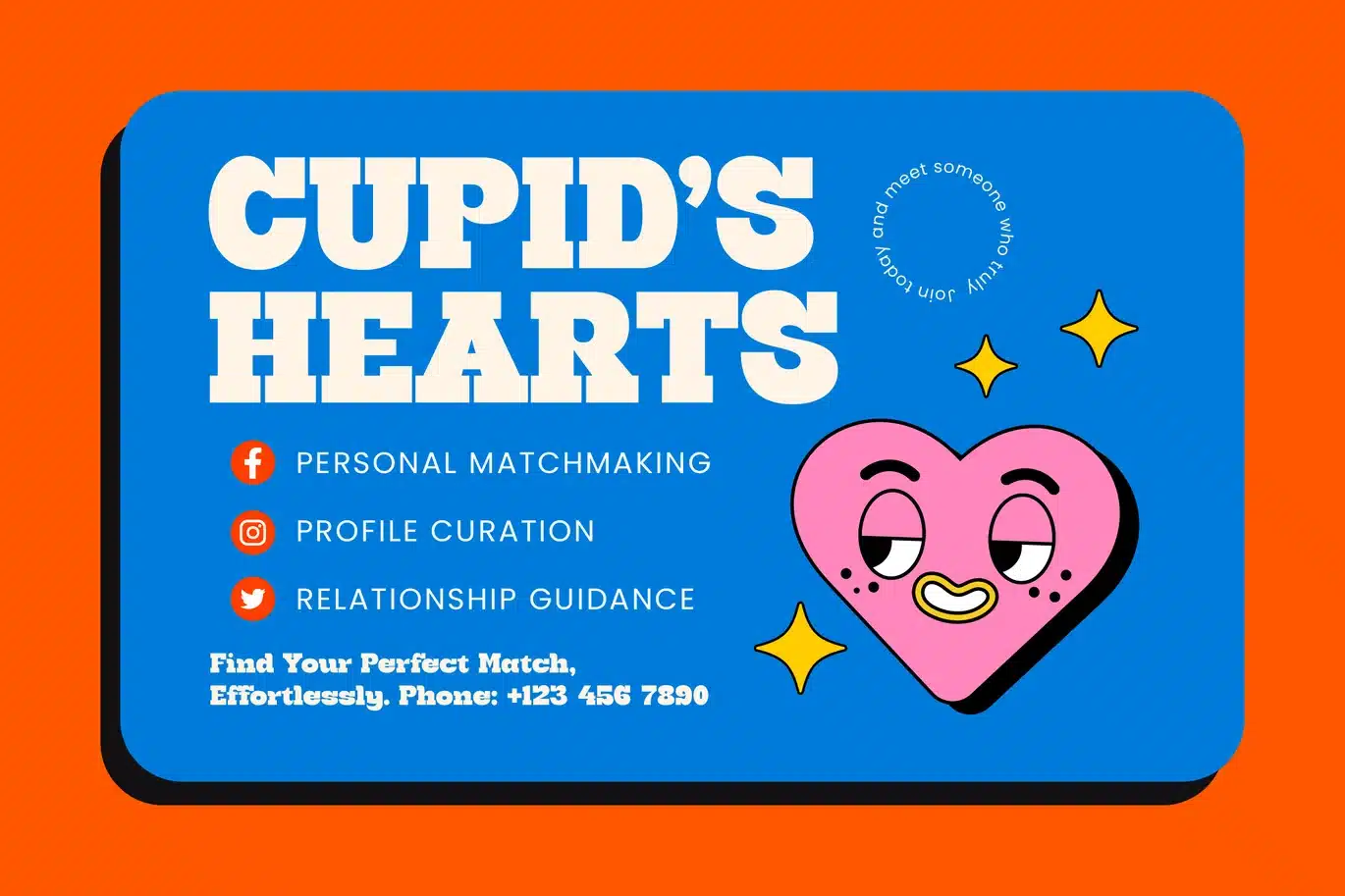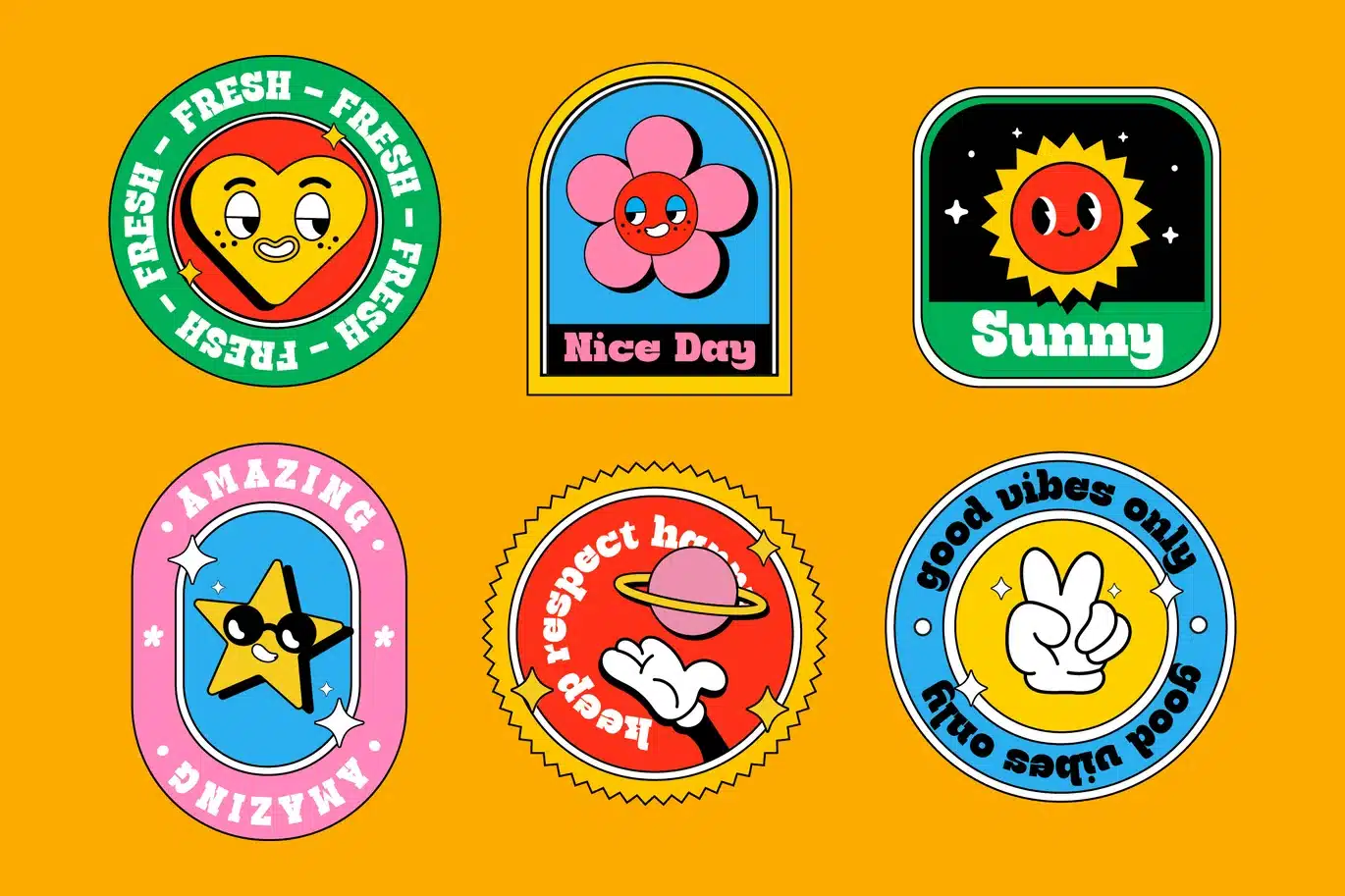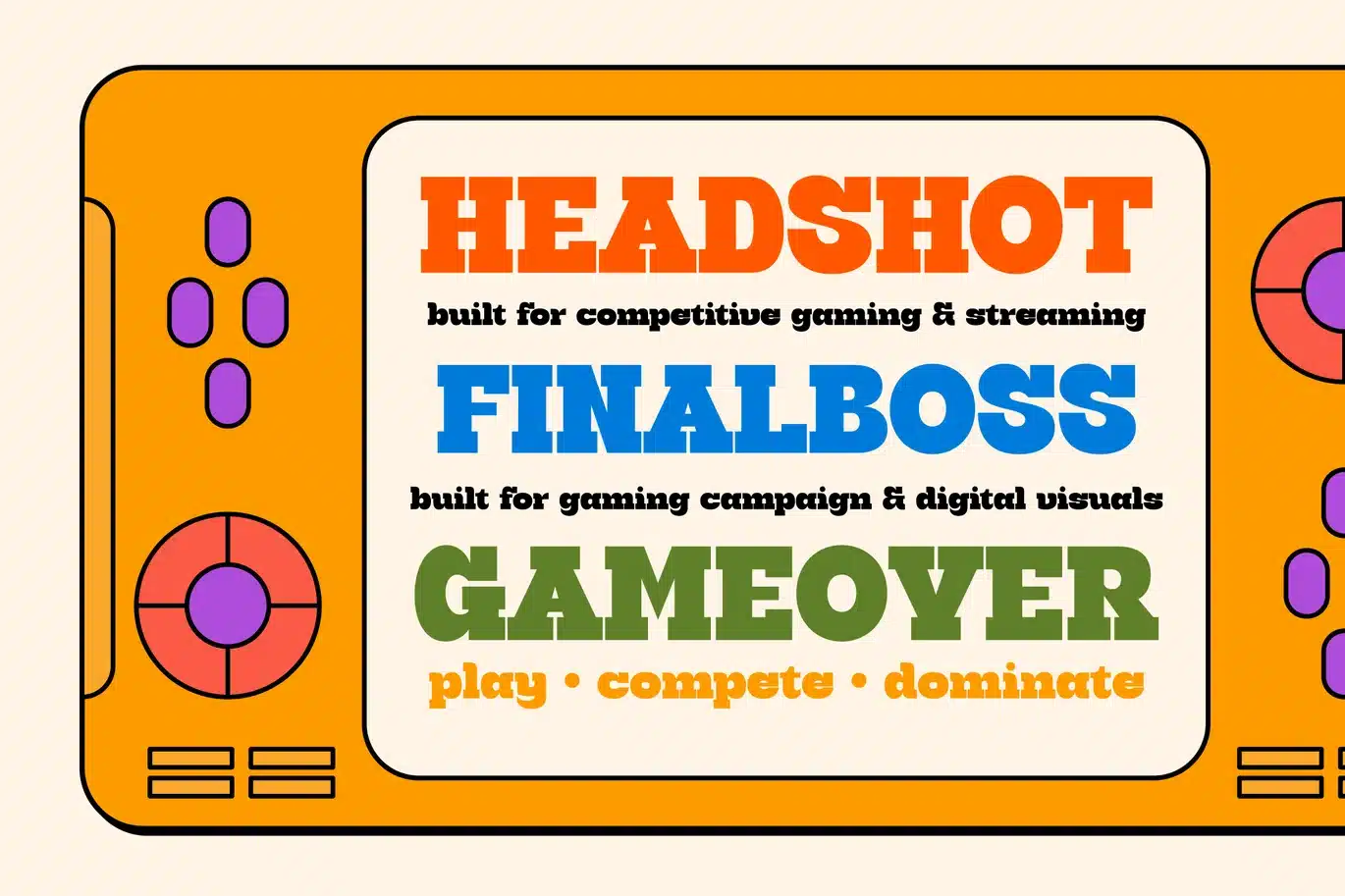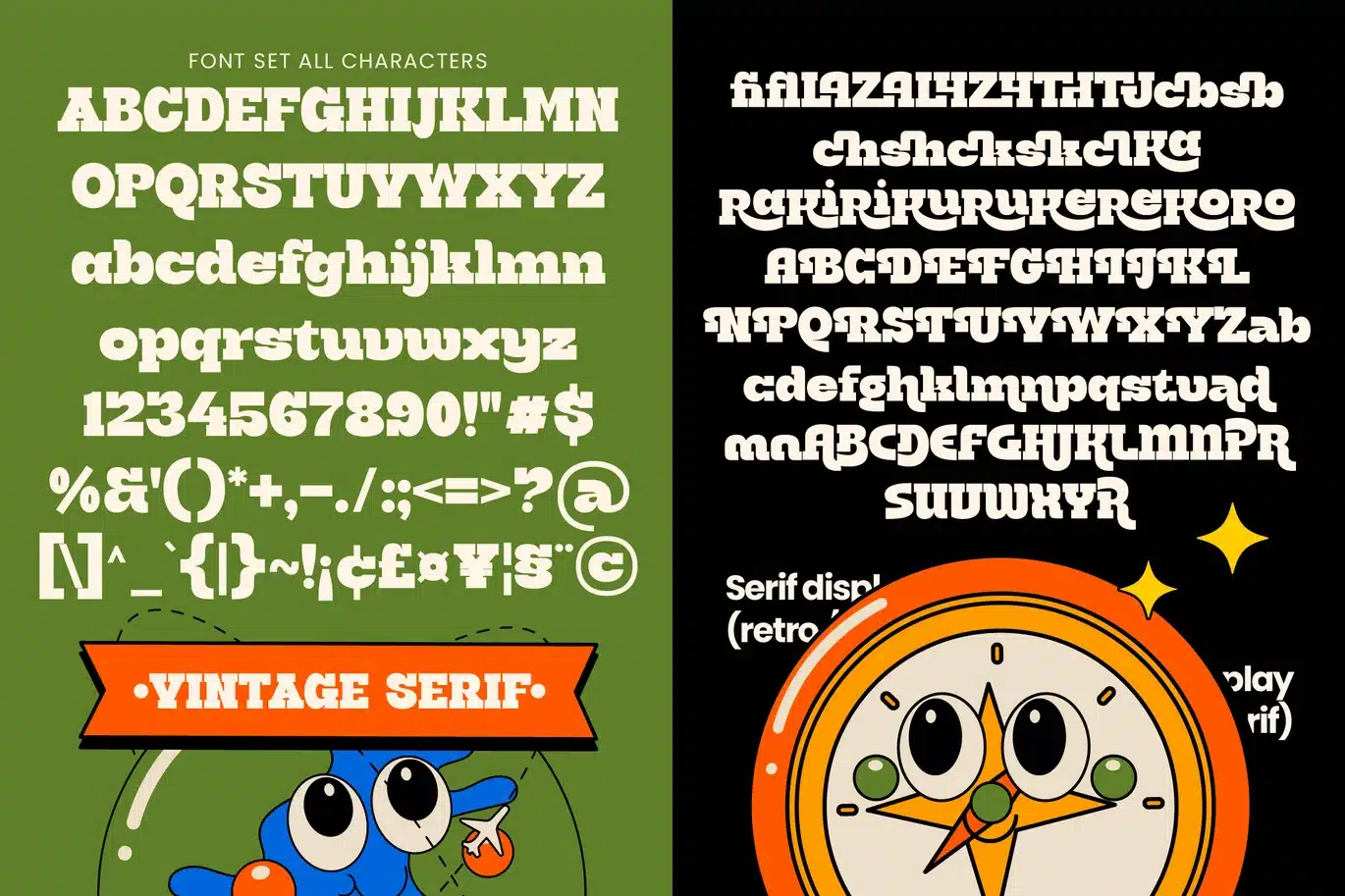
Groovy Bigsky – Retro Vintage Serif Font
Groovy Bigsky – Retro Vintage Serif
Elevate your design projects with a bold infusion of nostalgic charm. Groovy Bigsky – Retro Vintage Serif is a masterclass in vintage aesthetics, blending psychedelic energy with modern typographic precision. This chunky display font features expressive curves that command attention instantly. Whether aiming for a funky retro vibe or a sophisticated nostalgic look, its unique personality ensures your message stands out with unmatched visual weight and creative flair.
Unlock unparalleled versatility for your most ambitious creative ventures. This typeface is the perfect solution for luxury branding, high-end packaging design, and vibrant editorial layouts. Groovy Bigsky – Retro Vintage Serif excels in headline settings, making it an ideal choice for poster design and apparel branding. Its combination of artistic ligatures and stylized alternates allows designers to craft bespoke compositions that resonate with both classic and contemporary styles.
Expand your creative horizons with a font built for the modern global landscape. With its extensive multilingual support, Groovy Bigsky – Retro Vintage Serif adapts seamlessly across global markets, making it incredibly versatile for international projects. This comprehensive character set ensures your brand voice remains consistent across various regions. By integrating Groovy Bigsky – Retro Vintage Serif into your toolkit, you gain a cross-cultural asset that maintains a cohesive and professional identity.